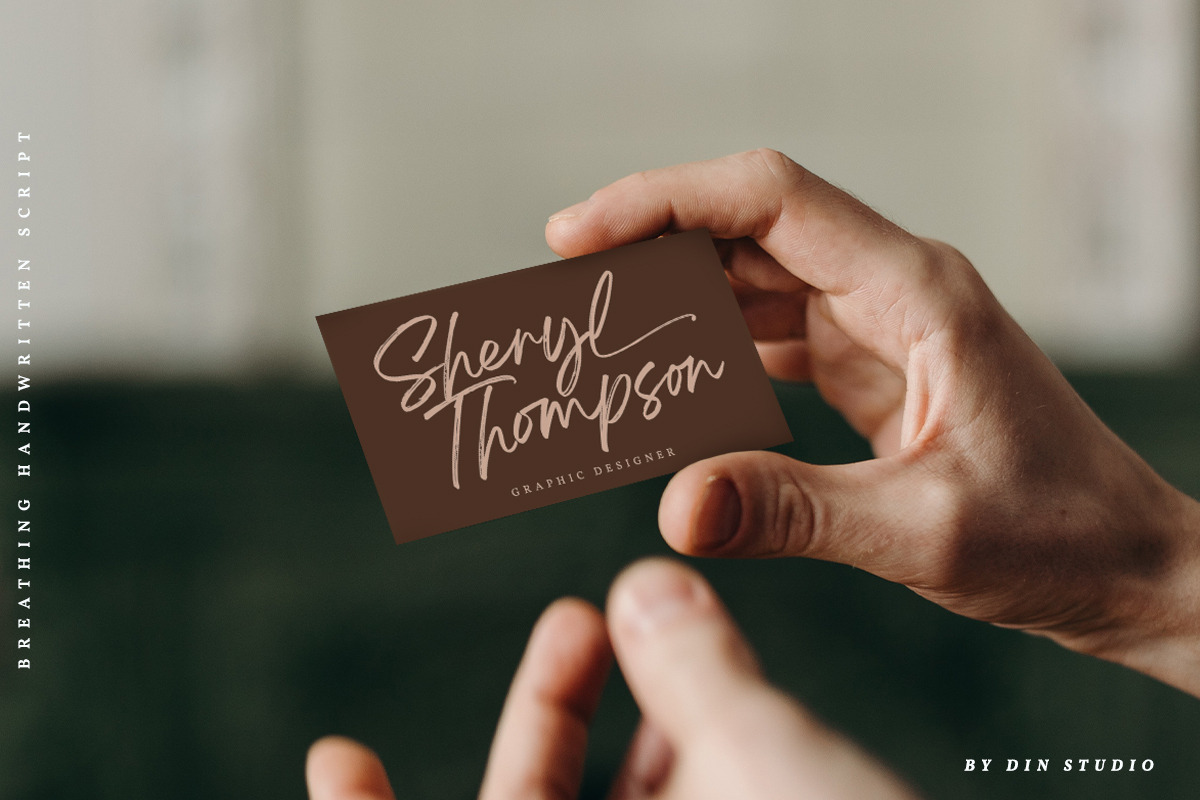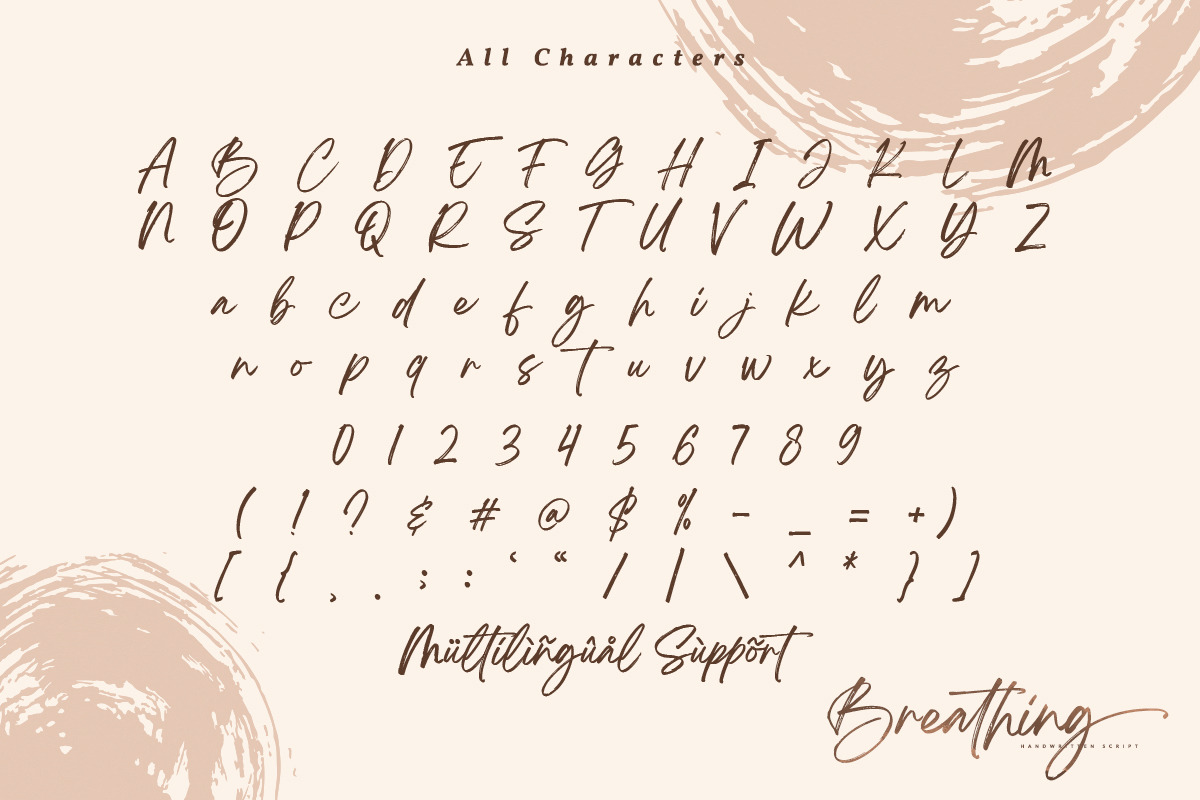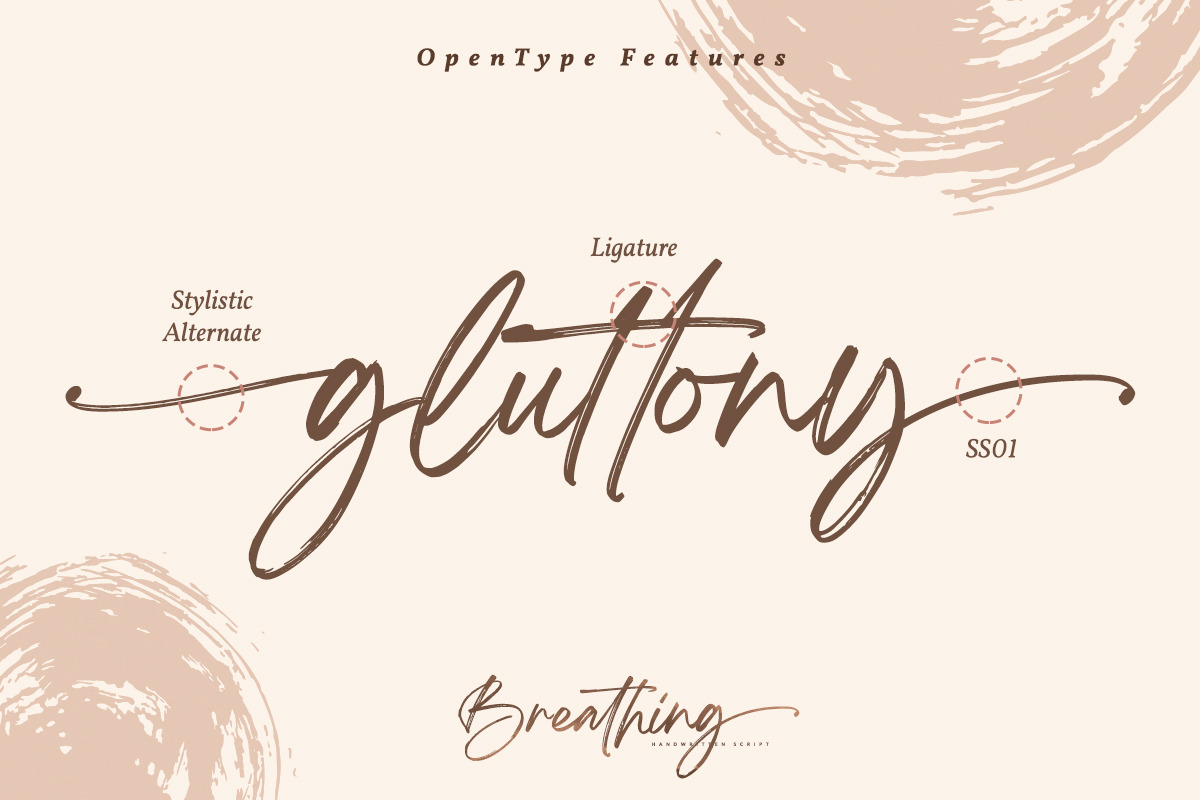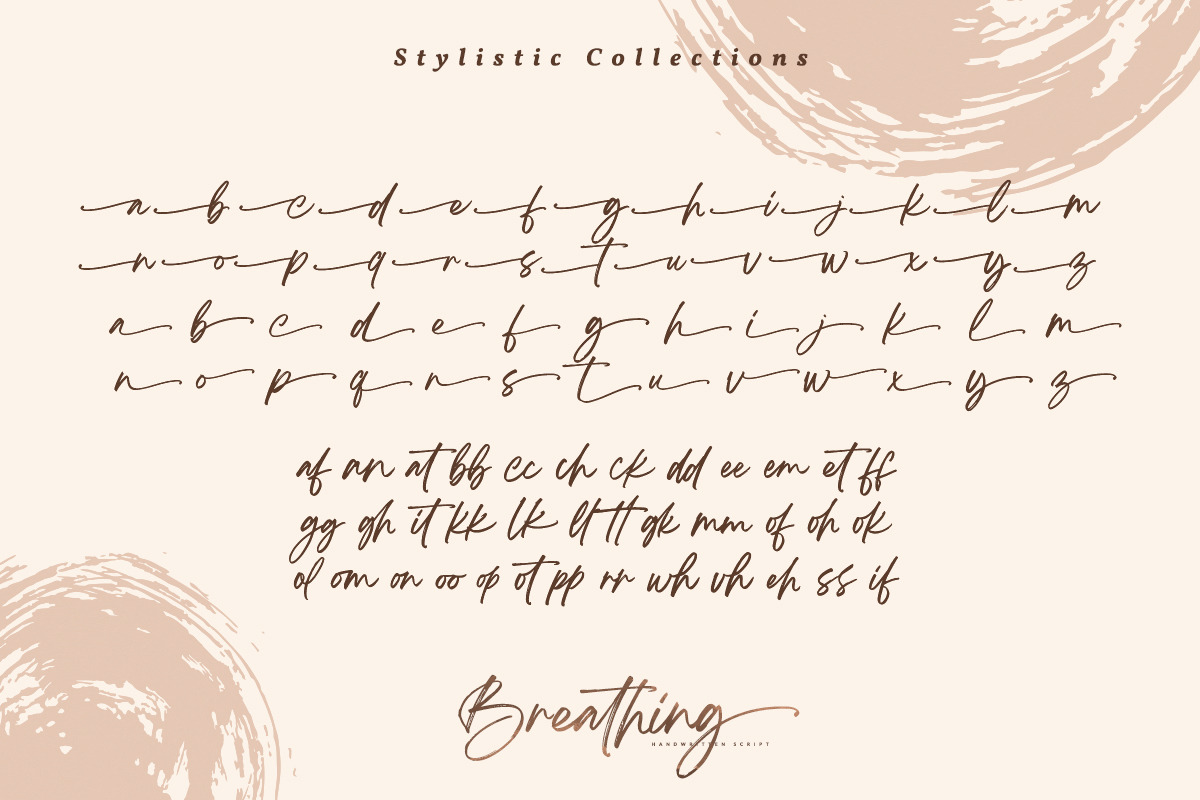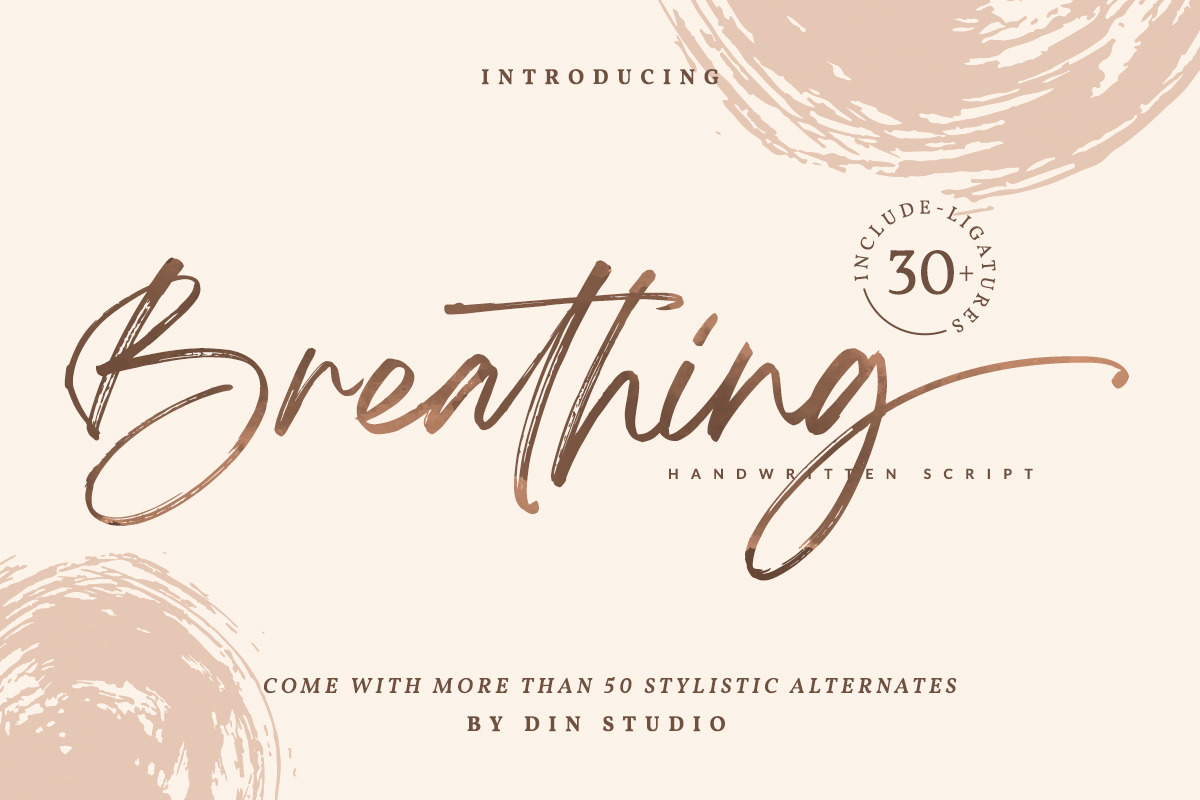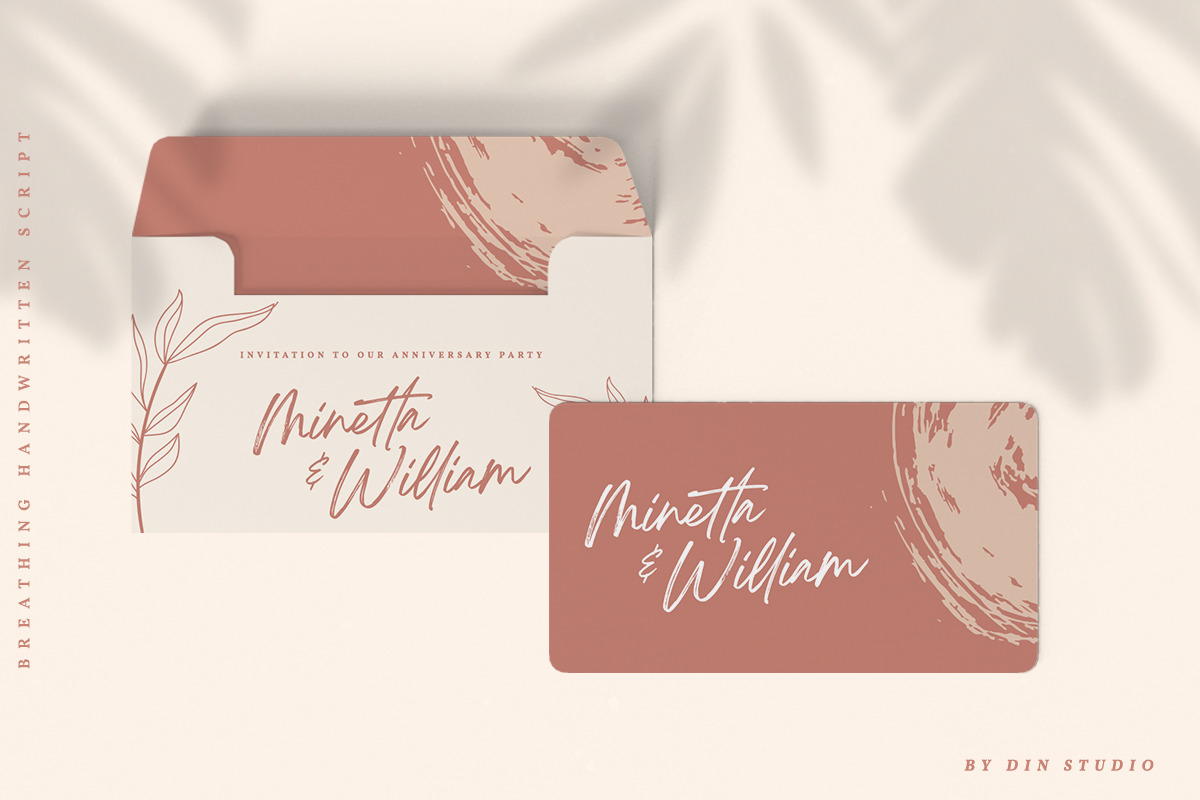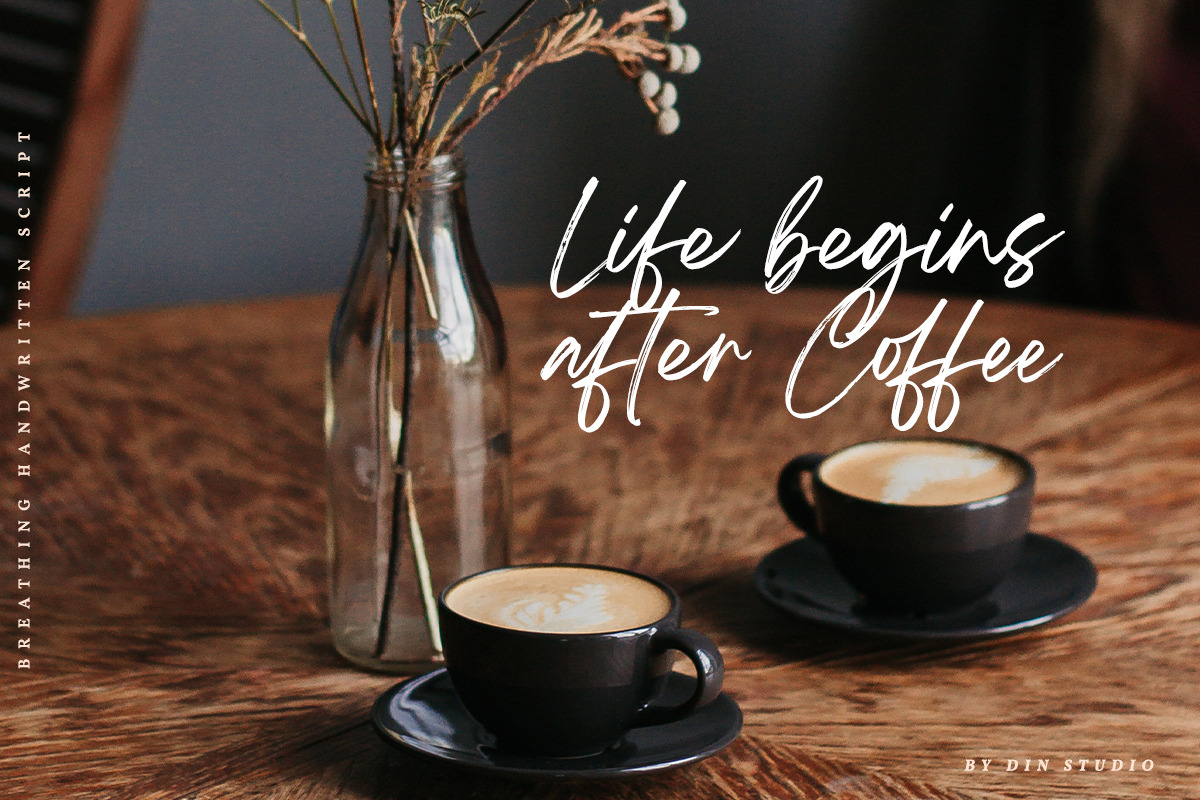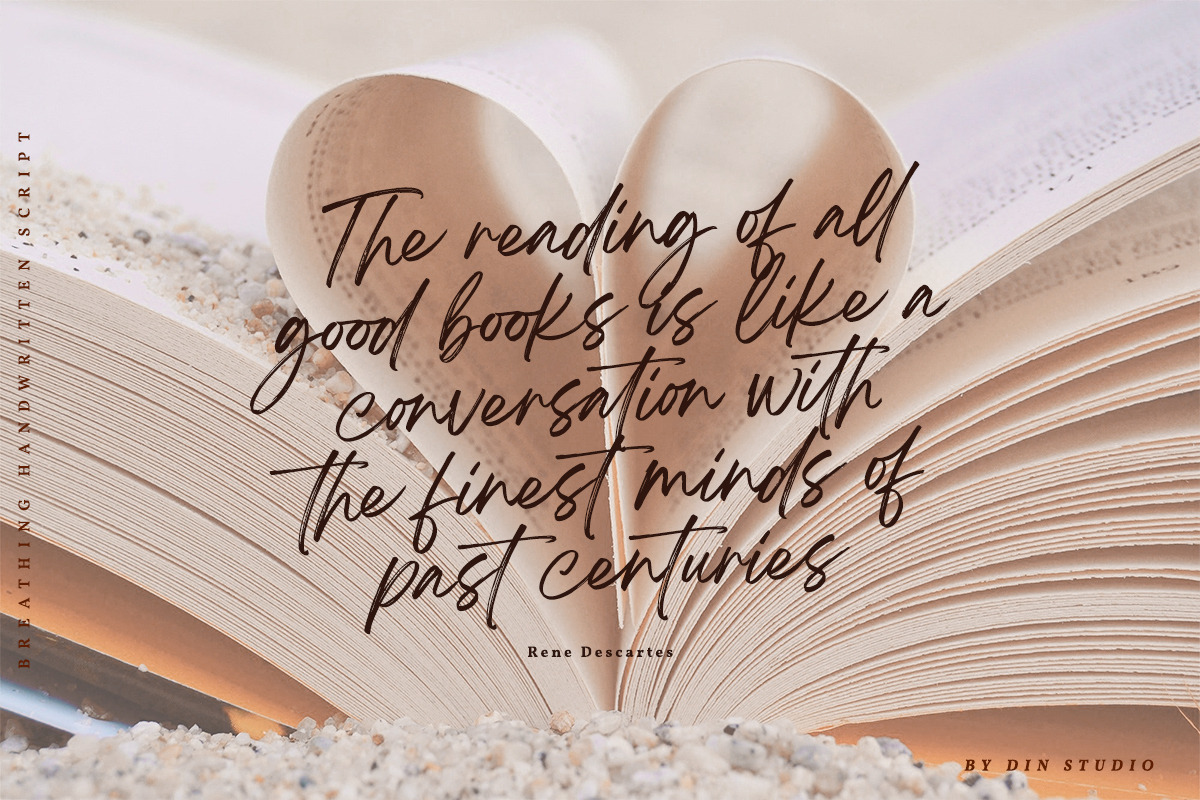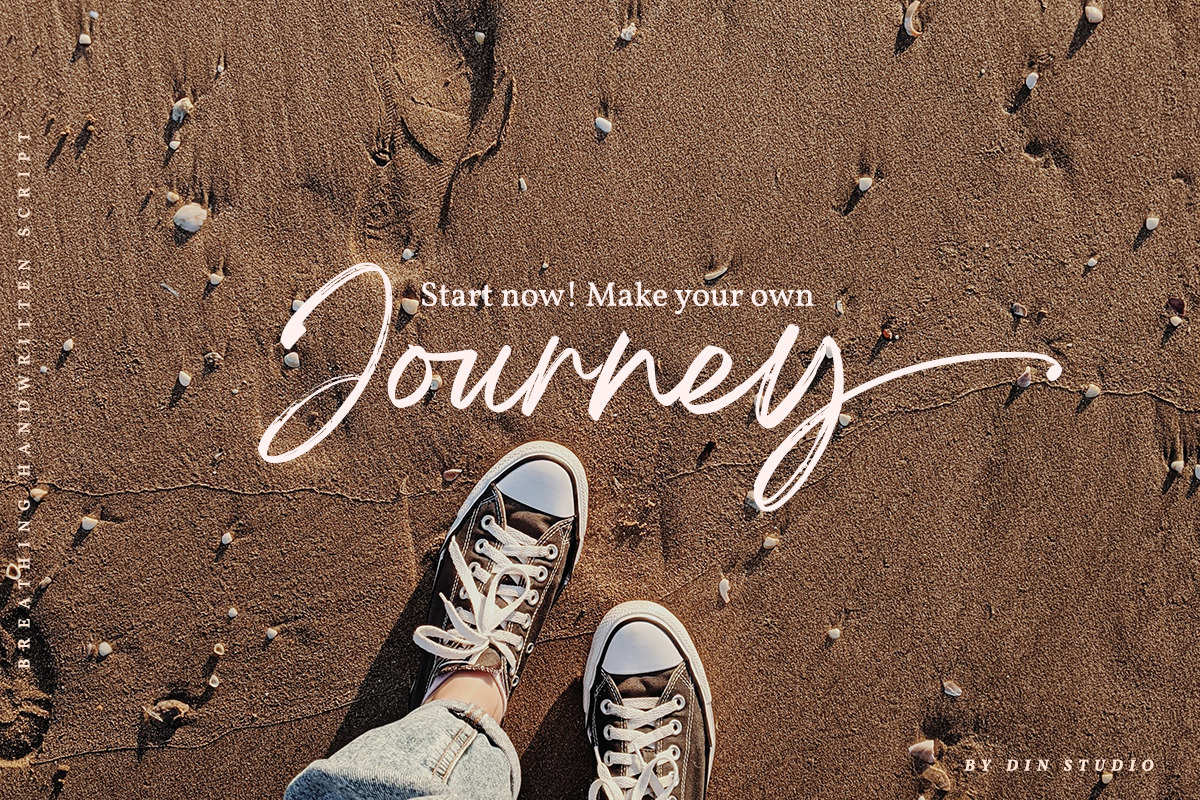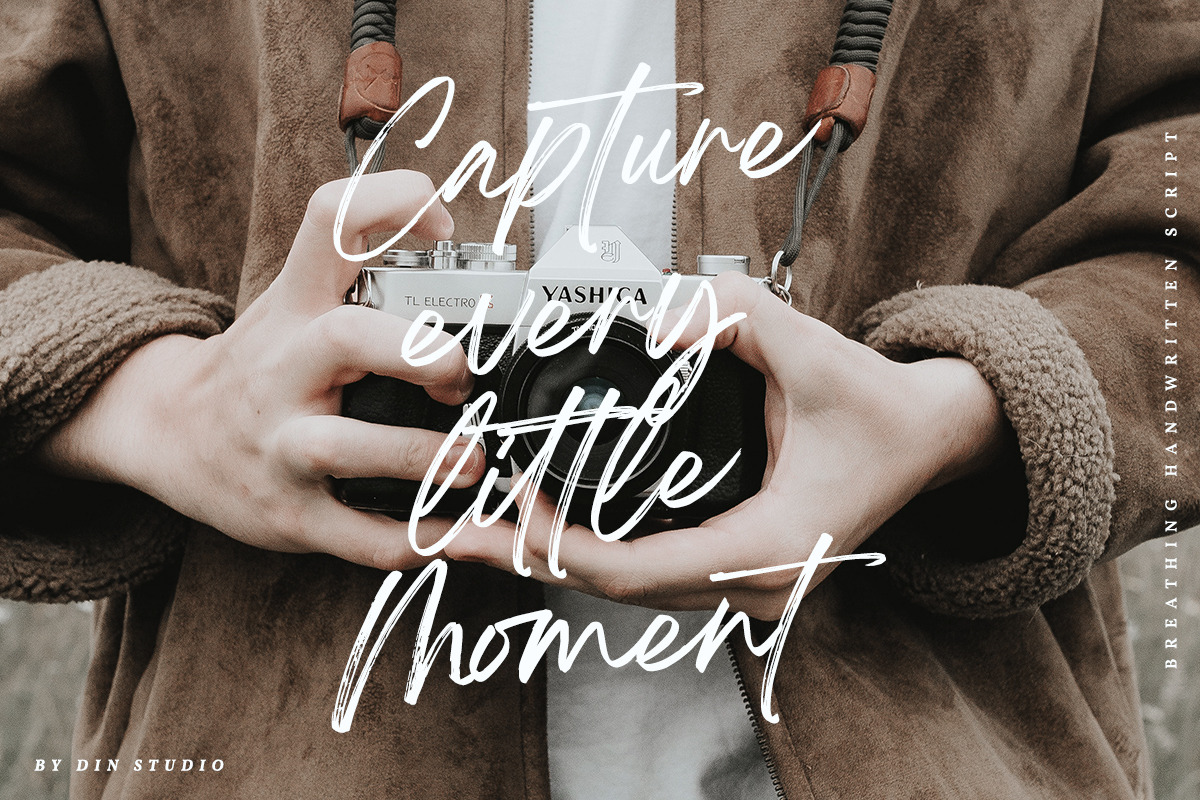
Breathing - Beautiful Brush Font
Breathing is a beautiful brush signature font. Made for any professional project branding. Every letter has a unique and beautiful touch. Made from our talented designer. Use Breathing for various designs, such as posters, banners, logos, book covers, headings, printed products, merchandise, social media, and more. Find out more ways to use this font by taking a look at the font preview.
- 52 Stylistic set
- 37 Ligatures